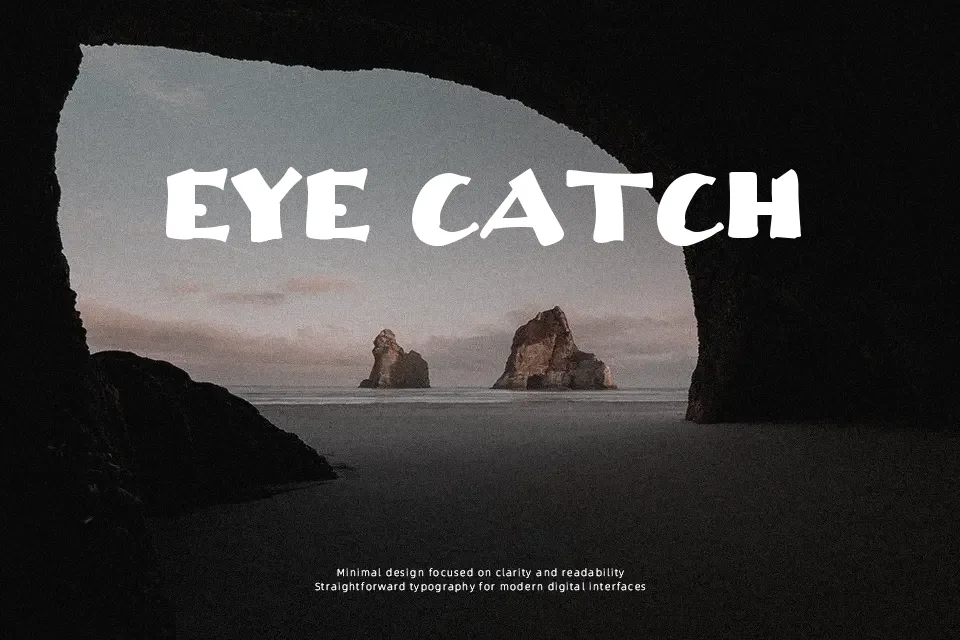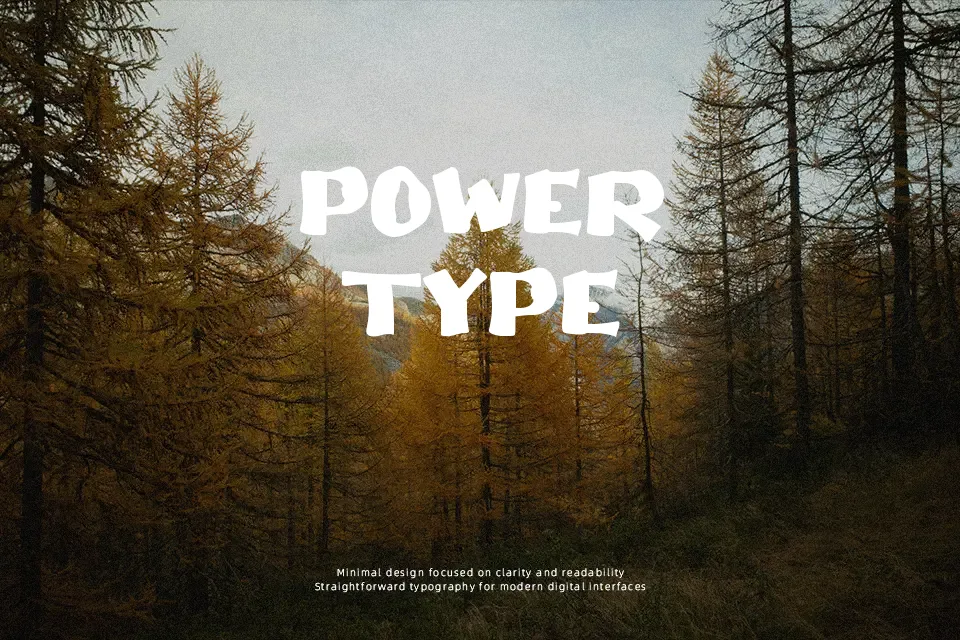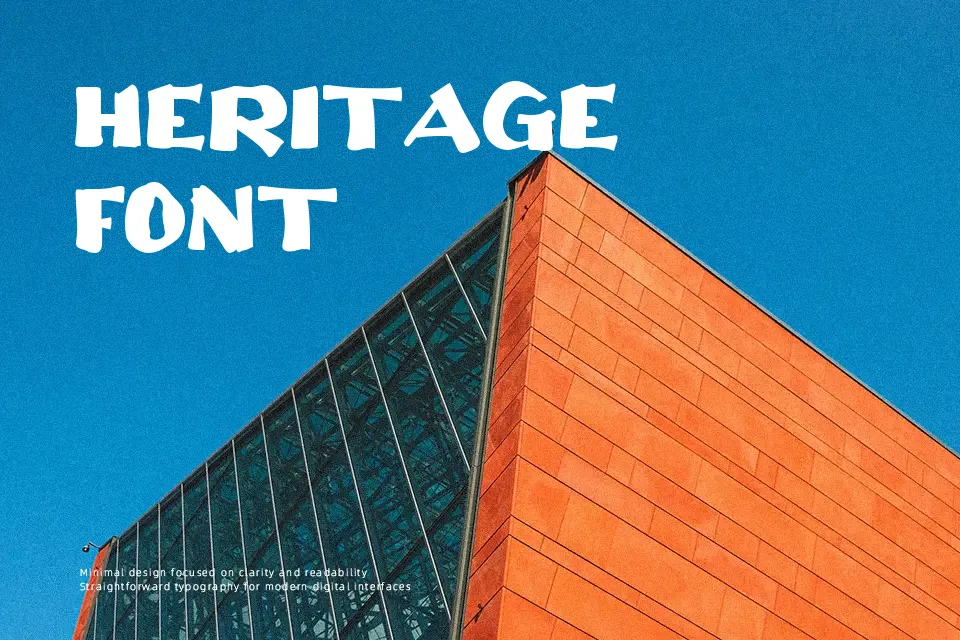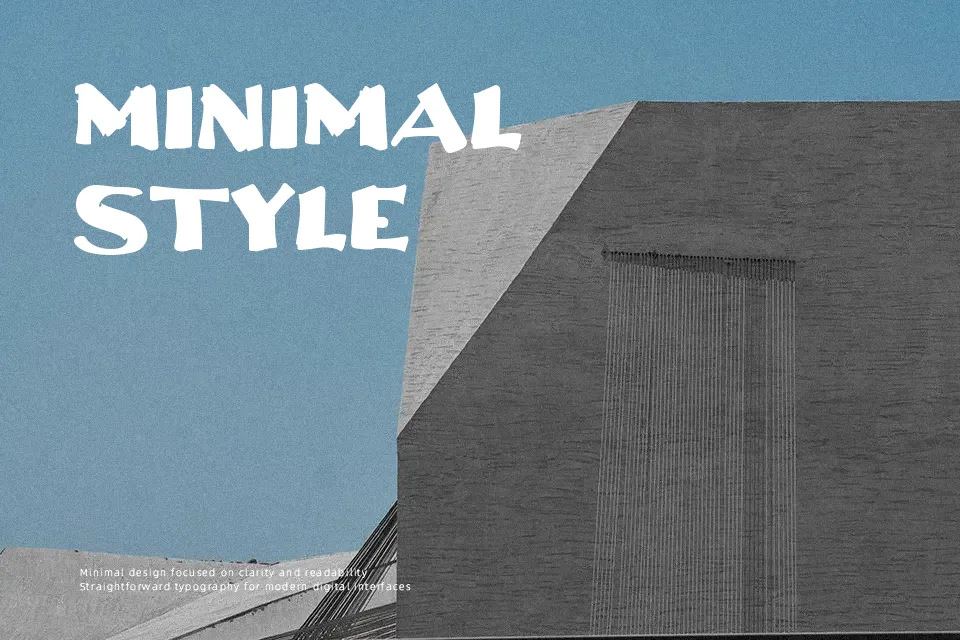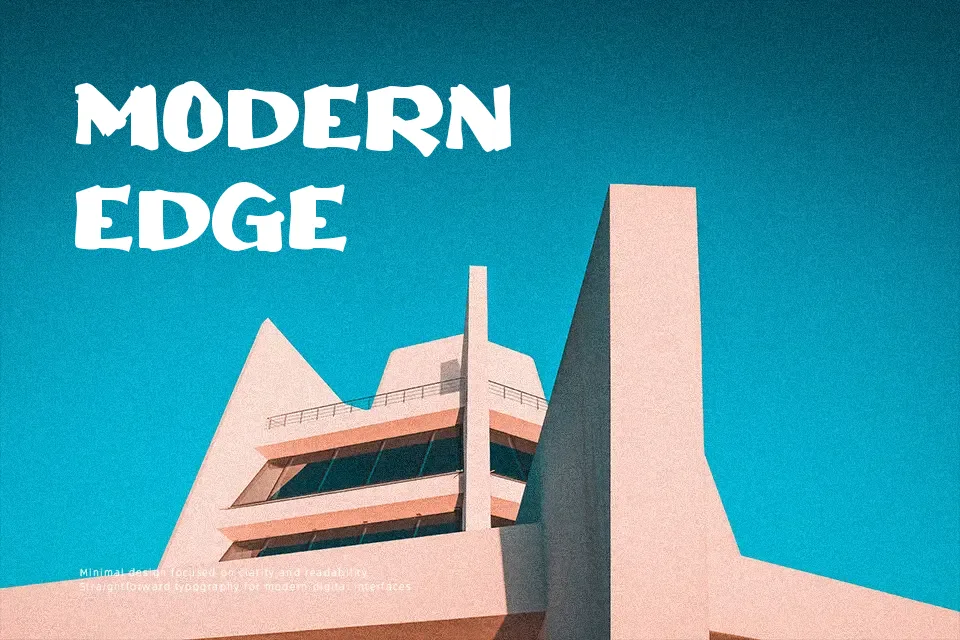
A Akuilah Font
A Akuilah lands somewhere between hand-lettered comic art and casual display type — thick strokes, informal construction, and a confident energy that reads well at large sizes. The letterforms carry an almost illustrative quality, making it a natural fit for merchandise graphics, gaming thumbnails, or event posters aimed at younger audiences. It handles bold headline roles competently, but push it into body copy or small print and legibility deteriorates fast. Designers working on playful branding or streetwear labels will find it pulls its weight; those needing something versatile across sizes should look elsewhere. A solid pick when character matters more than refinement.
Best For:- Graphic tee and streetwear label designs
– Gaming channel thumbnails and social media headers
– Youth event posters and flyer headlines
– Comic-style logo treatments
Not Ideal For:- Body text or paragraphs at any size
– Corporate or professional business materials
– Formal invitations or editorial layouts
– Multilingual or extended character set needs
Perfect for branding, gaming, and logo, with a bold and comic style.